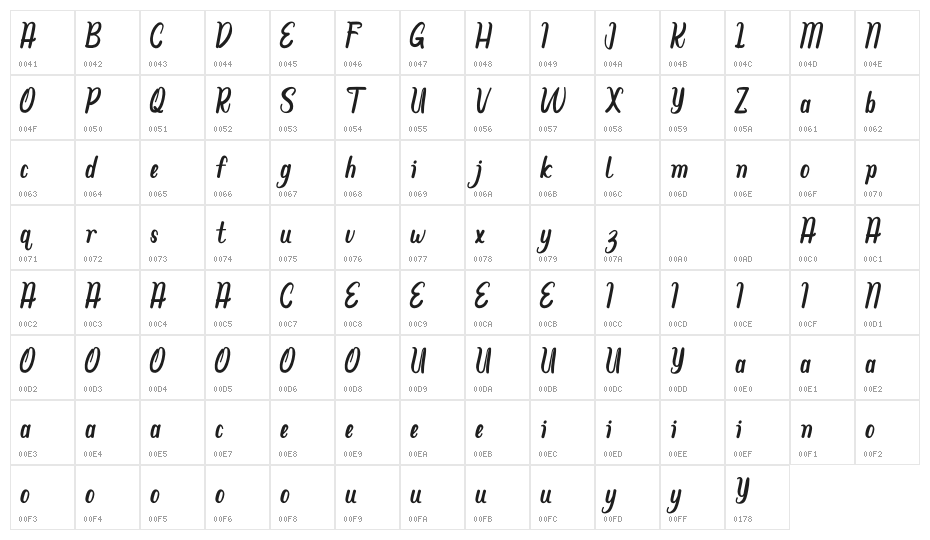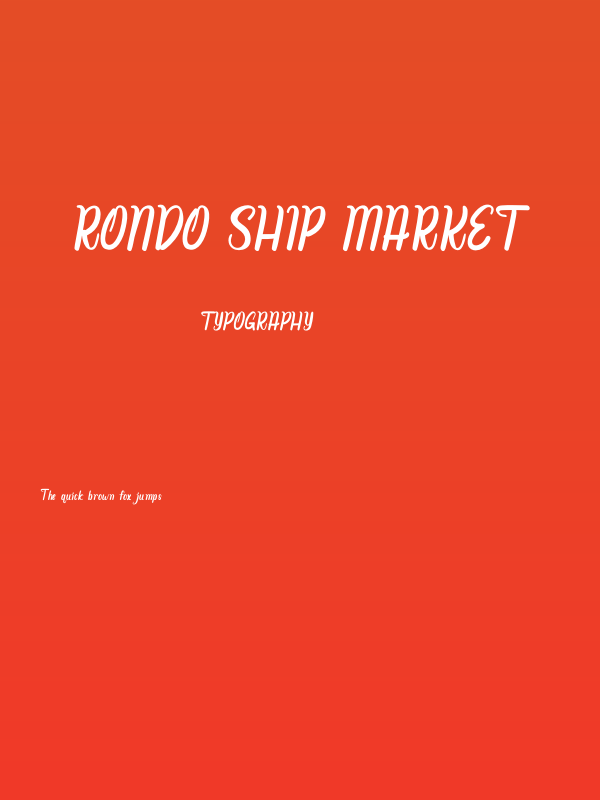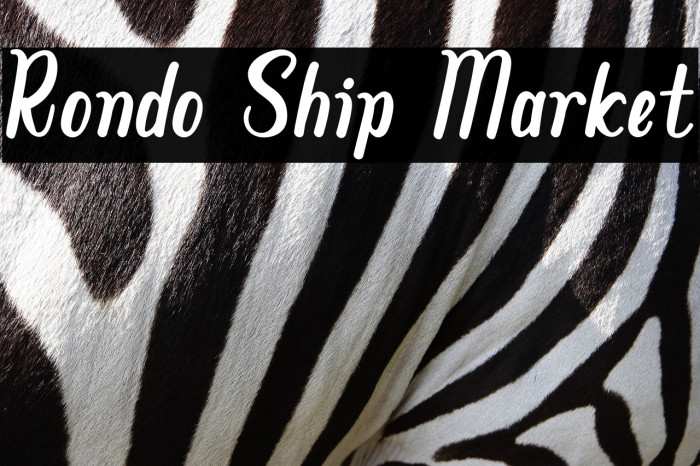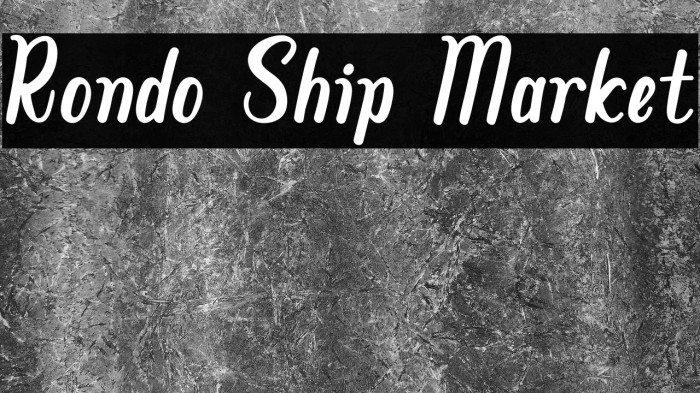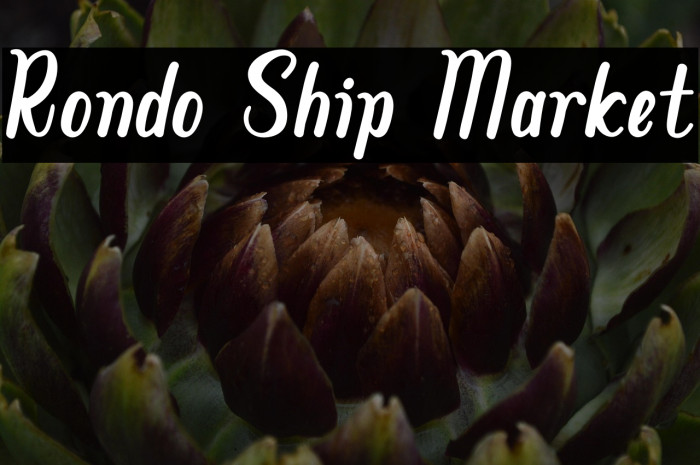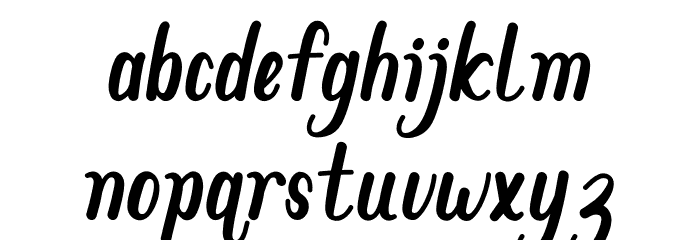
Rondo Ship Market Font
Rondo Ship Market Description
This font features a playful and dynamic script style, characterized by its fluid and connected strokes. The uppercase letters are bold and slightly slanted, giving a sense of movement and energy. The lowercase letters maintain a consistent flow, with rounded edges and a casual feel. The overall design is modern yet retains a touch of classic script elegance, making it versatile for various applications. The font's unique character is further enhanced by its moderate contrast in stroke thickness, adding depth and visual interest.
| Proposed Projects | Ideal for branding projects, invitations, greeting cards, and any design that requires a touch of elegance and playfulness. |